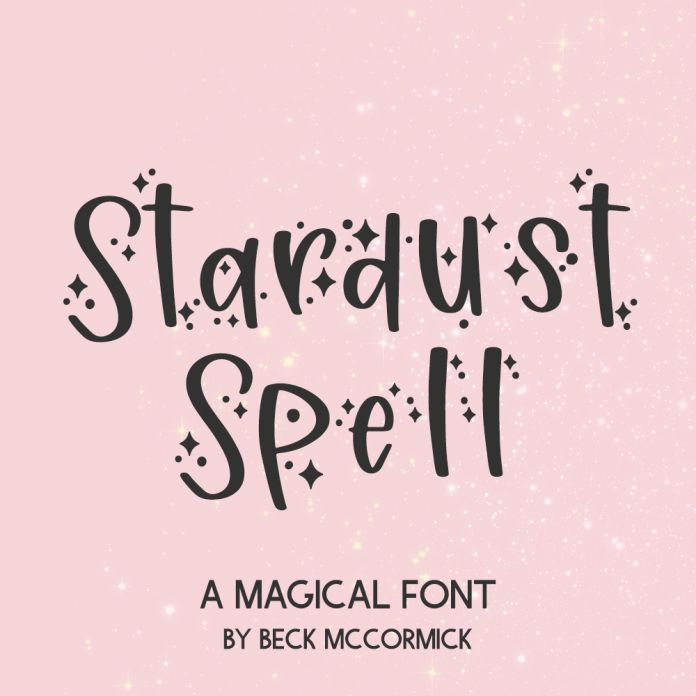
Introducing Stardust Spell Sans, a celestial, starry sans font. Stardust Sans is whimsical & playful, and would be a great fit for anything Halloween related.
- full uppercase & lowercase letters